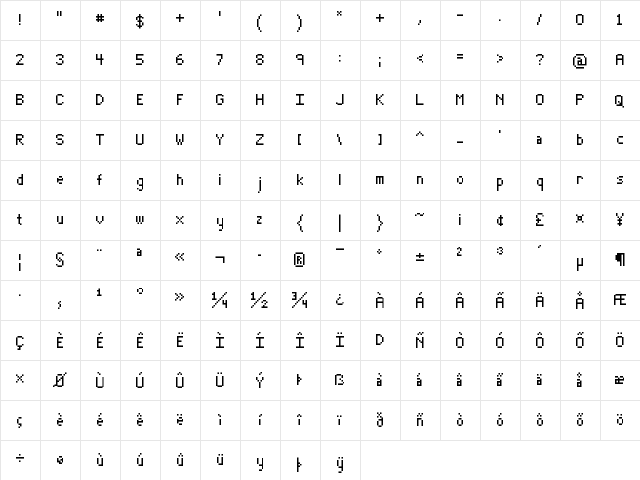
Angie Atore Regular
Design Context for Angie Atore Typeface
Angie Atore is a composed and adaptable typeface that performs quietly and consistently across a wide range of design contexts.